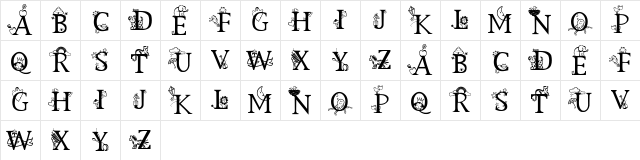
Kids Alphabet Regular
Design Context for Kids Alphabet
Kids Alphabet has an approachable, lighthearted character - its loose, expressive forms are well-suited to children's content, casual branding, and fun-first design.
Font Pairing: Pairs well with a rounded or humanist sans for body copy, maintaining the friendly tone without relying on Kids Alphabet to carry extended reading.
Pro Tip: Use Kids Alphabet at larger display sizes where its expressive character can land. Pair with a clean, simple sans for body copy to maintain readability.